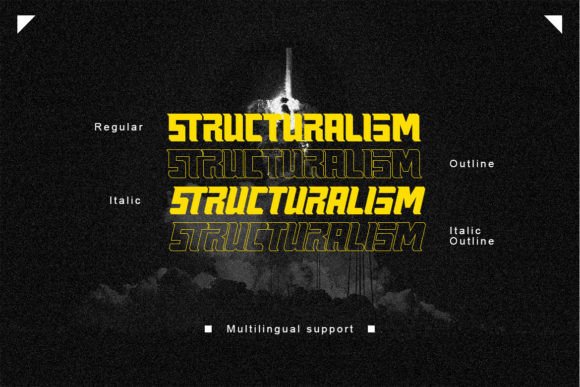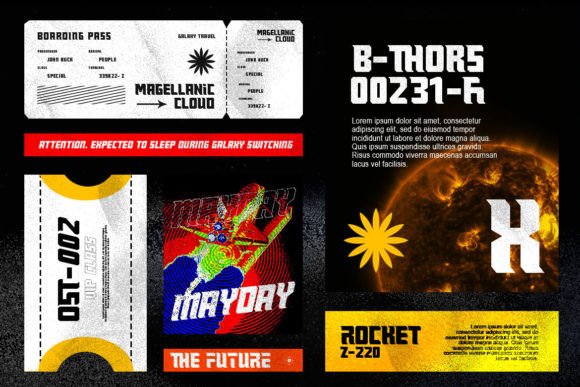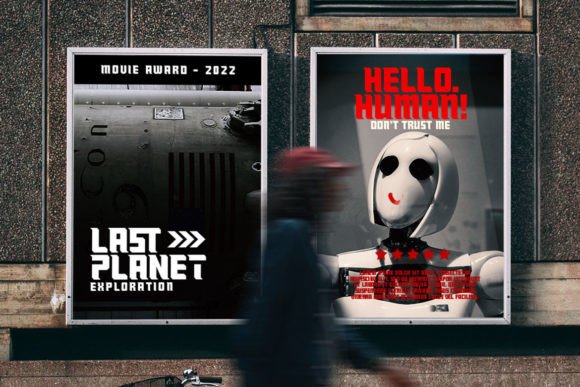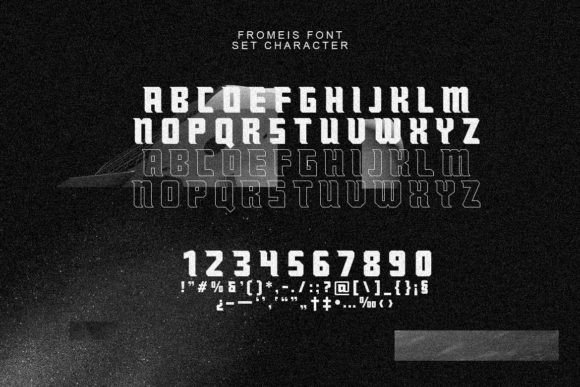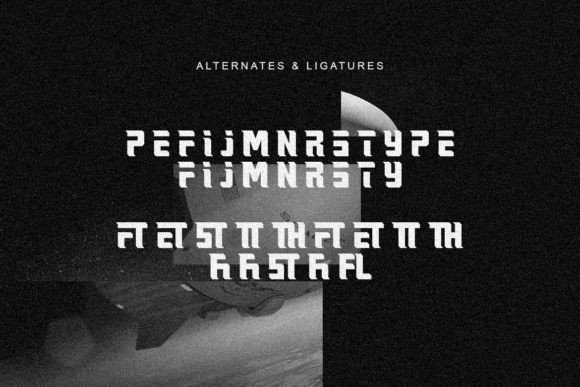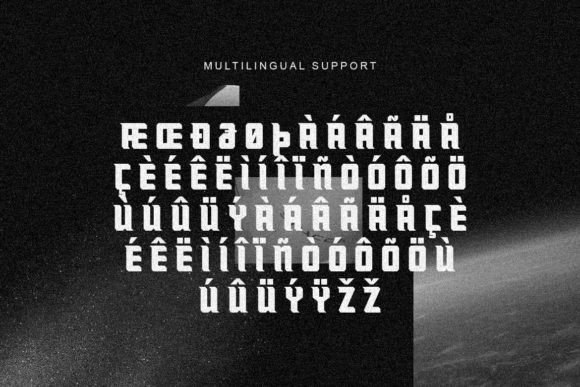
Unlocking the Power of Daring Typography
Have you ever stared at a blank page, waiting for inspiration to strike? For many designers, it’s that moment of blankness that sparks the most creative ideas. And sometimes, all it takes is the right font to bring a project to life.
That’s where Fromeis Font comes in – a modern and cool display font designed to make a statement. With its bold, strong, and assertive style, this font is perfect for any project that requires daring typography. Whether you’re working on a logo, poster, or social media campaign, Fromeis Font will help you stand out from the crowd.
What sets Fromeis Font apart is its PUA encoding, making it easy to access all the glyphs and ligatures you need. This means you can focus on the creative process, without getting bogged down in technical details.
Fromeis Font Key Features
- Font Family: Fromeis is a sans-serif font family.
- Character Set: Supports a wide range of languages, including Latin, Cyrillic, and Greek.
- Resolution: Designed for high-resolution displays, with a recommended resolution of 300 DPI or higher.
- Font Size: Available in a range of sizes, from 8 points to 72 points, with precise control over font scaling.
- Unique Characteristics: Fromeis features a distinctive, geometric aesthetic with clean lines and a minimalist feel.
Fromeis Font Review
I recently had the chance to work with the Fromeis Font, and I must say it’s a font that’s trying to make a statement. ✨ Here are some of its strengths and weaknesses.
- ✨ Fromeis Font has a unique, modern design that’s perfect for making a bold statement. It’s great for headlines and titles.
- ✨ The font is highly customizable, with a wide range of styles and weights to choose from. This makes it easy to find the perfect fit for your project.
- ✨ The font is also highly legible, even at small font sizes, which makes it a great choice for digital projects.
- ⚠️ The font can be a bit too bold for some projects. It’s not the best choice for body text, as it can be overwhelming to read.
- ⚠️ The font is also quite generic, and doesn’t have a lot of personality. This can make it hard to differentiate it from other fonts.
Overall, I think Fromeis Font is a solid choice for projects that need a bold, modern look. However, it’s not the best choice for every project, and it’s worth considering its limitations before committing to it.
Getting the Most Out of Fromeis Font
To get the most out of Fromeis Font, use it in conjunction with other design elements to create a cohesive look.
Experiment with different font sizes, colors, and styles to create visual interest and hierarchy in your design.
Fromeis Font is suitable for a variety of design projects, including:
- Brand identity and marketing materials
Alternatives to “Fromeis Font” for Designers
Montserrat is a sans-serif font designed by Julieta Ulanovsky. It is a popular choice for digital design due to its clean and modern aesthetic. Use Montserrat for digital products, logos, and branding materials where a clean and modern look is desired.
Montserrat is similar to Fromeis Font in its modern aesthetic, but it has a more geometric and condensed feel. Montserrat is also more widely available and supported by most devices and browsers, making it a great choice for digital design projects.
Open Sans is a sans-serif font designed by Steve Matteson. It is a highly legible font that is optimized for digital use. Use Open Sans for body text, headings, and other design elements where readability is key.
Open Sans is similar to Fromeis Font in its clean and modern aesthetic, but it has a more rounded and friendly feel. Open Sans is also a great choice for projects where a neutral and approachable tone is desired.
Inter is a sans-serif font designed by Rasmus Andersson. It is a highly versatile font that is optimized for digital use. Use Inter for digital products, logos, and branding materials where a clean and modern look is desired.
Inter is similar to Fromeis Font in its modern aesthetic, but it has a more geometric and condensed feel. Inter is also a great choice for projects where a high level of customization is desired, as it is highly customizable and supports a wide range of languages.